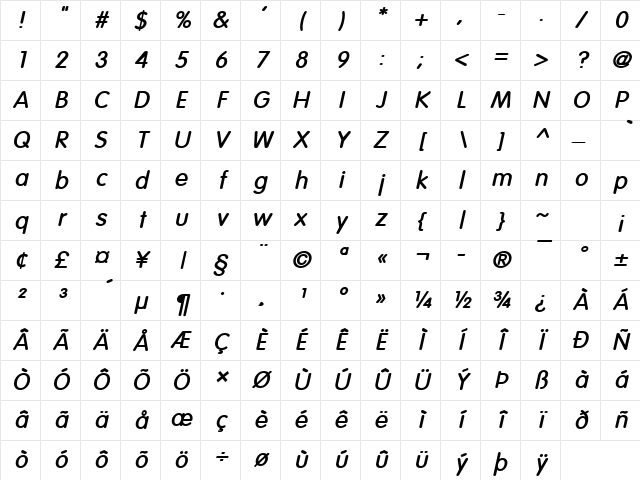
Vogel BoldItalic
Design Context for Vogel
Vogel is a composed and adaptable typeface that performs quietly and consistently across a wide range of design contexts. The slanted form adds forward momentum and visual energy. Its bold stroke weight gives it real presence on the page.
Pro Tip: Use Vogel for emphasis, pull quotes, and subheadings where its slanted energy can add rhythm to the layout.